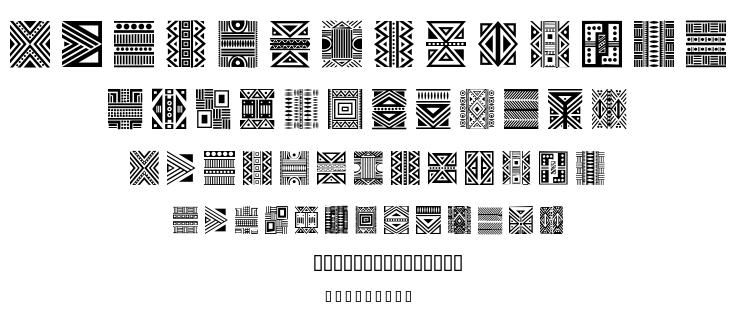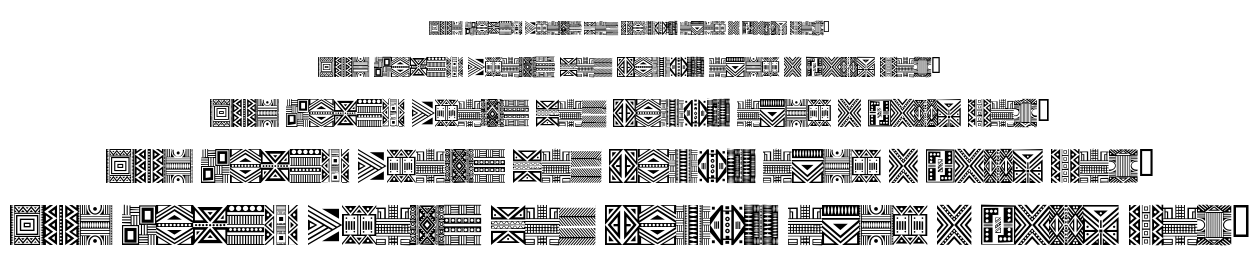
Haus Ethnik Dingbats, my first type design project, is a collection of motifs inspired from modifications on ethnic patterns derived from Zimbabwean material culture